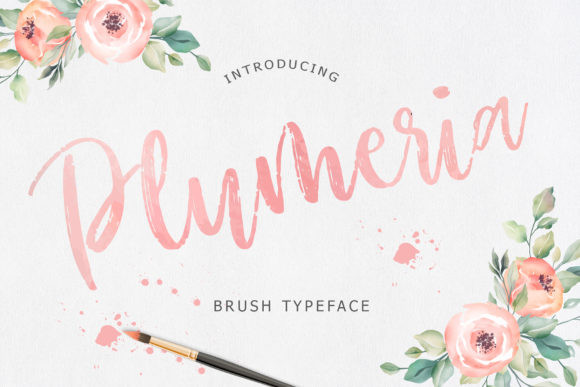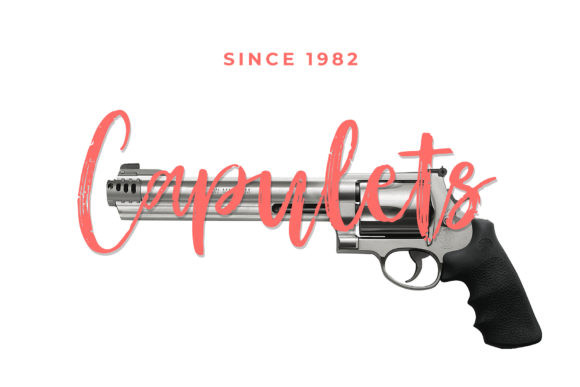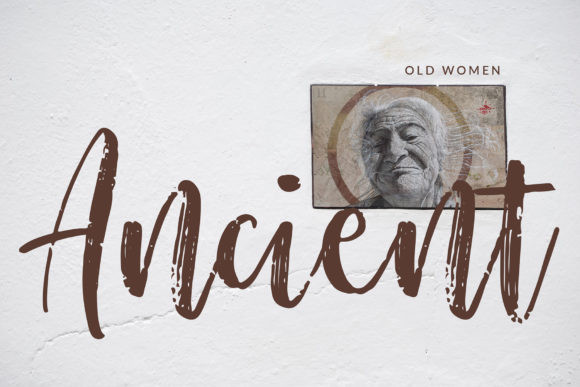
Plumeria Font
Plumeria is a fun and cute font, created by using a brush pen. Clean and a little bit quirky, this font is the perfect fit for all of your logos, branding, social media, and crafty DIY projects.